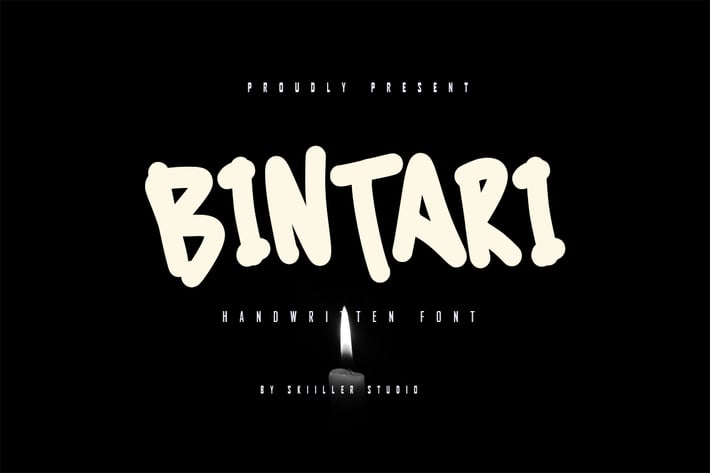
Bintari Handwritten Font
Bintari a handwritten font. This font will very suitable for your fun project like children party, cute quotes, or any cute fun related projects. Grab it now !